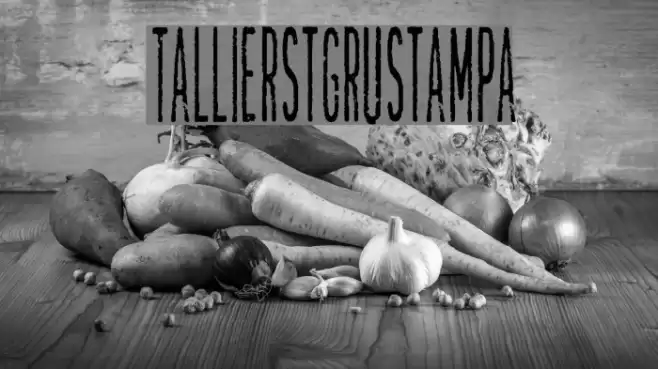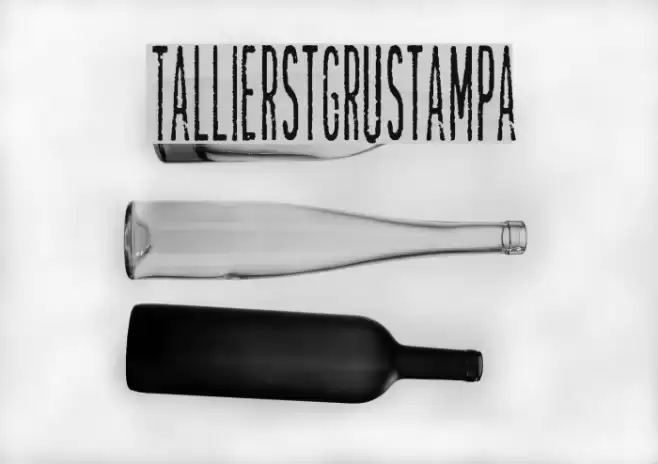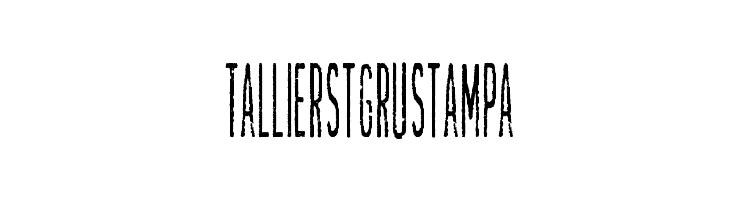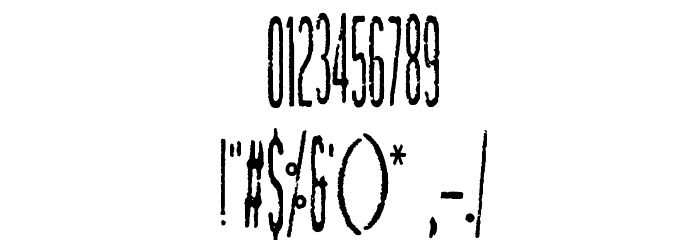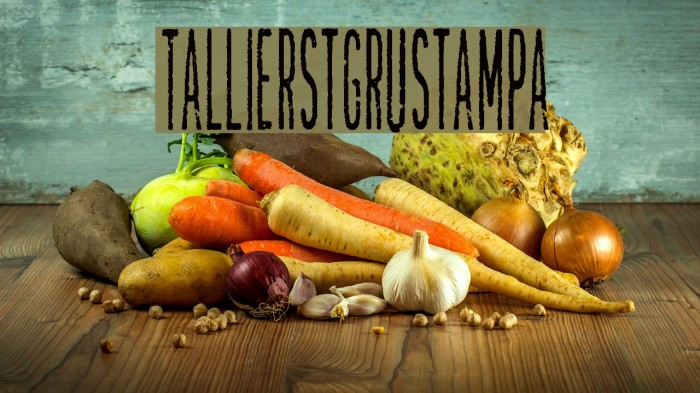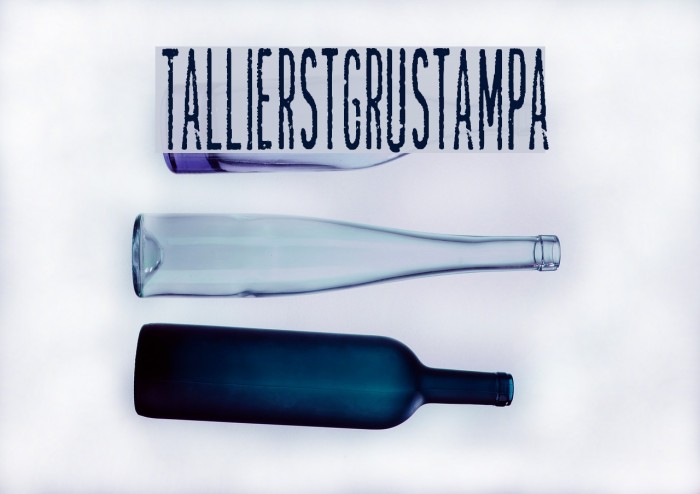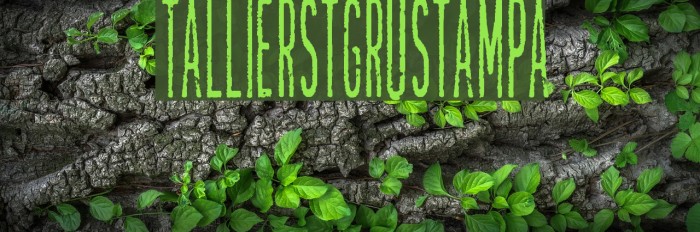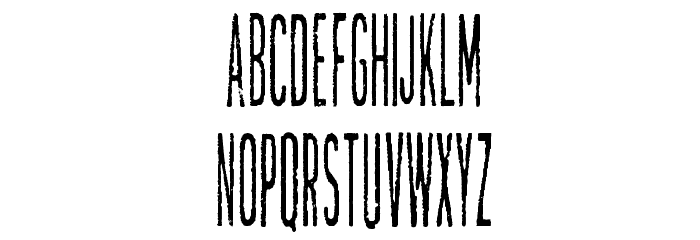
TallierstGrustampa Font
TallierstGrustampa Description
This font features a tall, narrow design with a distressed texture, giving it a vintage and rugged appearance. The uppercase letters are elongated, creating a striking and bold visual impact. The numbers and special characters maintain this distressed style, ensuring consistency across all elements. The font's unique texture adds a sense of depth and character, making it suitable for projects that require a touch of authenticity and rawness. Its distinct style is reminiscent of old signage or posters, making it ideal for designs that aim to evoke a sense of nostalgia or historical context.
A tall, narrow font with a distressed, vintage texture from Distorted Eroded fonts.
- Proposed Projects: Ideal for vintage posters, signage, branding projects, and any design requiring a rugged, historical feel.
- Overall Style: Vintage